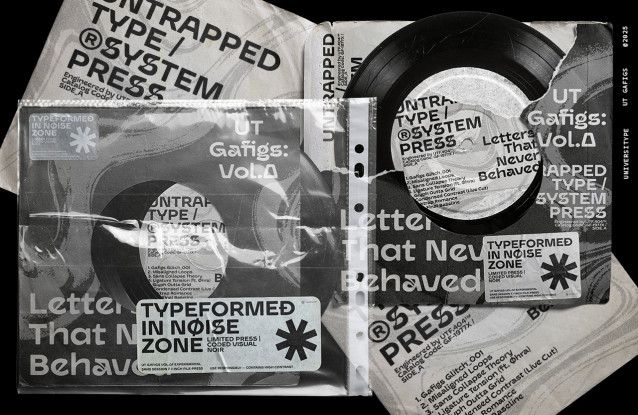
UT Gafigs Font
UT Graffisans rides the fine line between art and function, making it a powerful tool for designers who want to blend bold artistic flair with professional clarity. By combining the sharp lines of graffiti with the fluidity of skateboarding, this hybrid typeface brings a new level of creativity and motion to the design world.